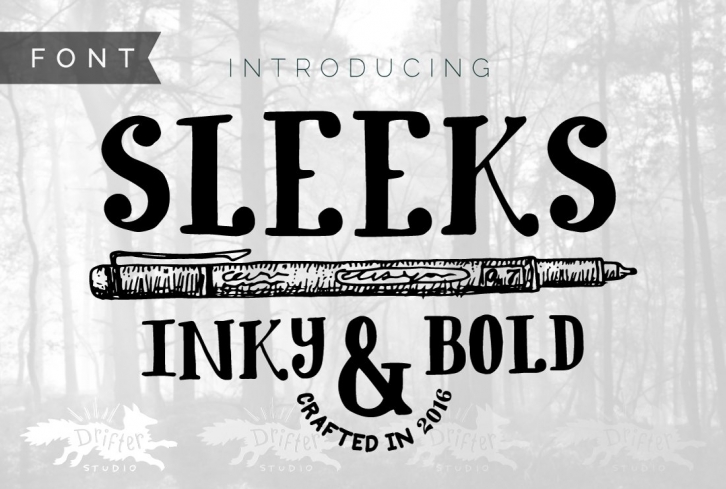
Sleeks Bold Capital is a neat little font I illustrated myself using Tikky Graphic fine line pens. It comes in an ttf file type. Works with Mac and Windows.
Sleeks is a great font for creating hand made logos, retro badges, vintage tags, and awkward tattoos. I use a fine liner pen on paper to create a realistic hand drawn (capital) character set. The mixed serif style and slightly off-kilter baseline gives the font a really friendly and handmade feel.